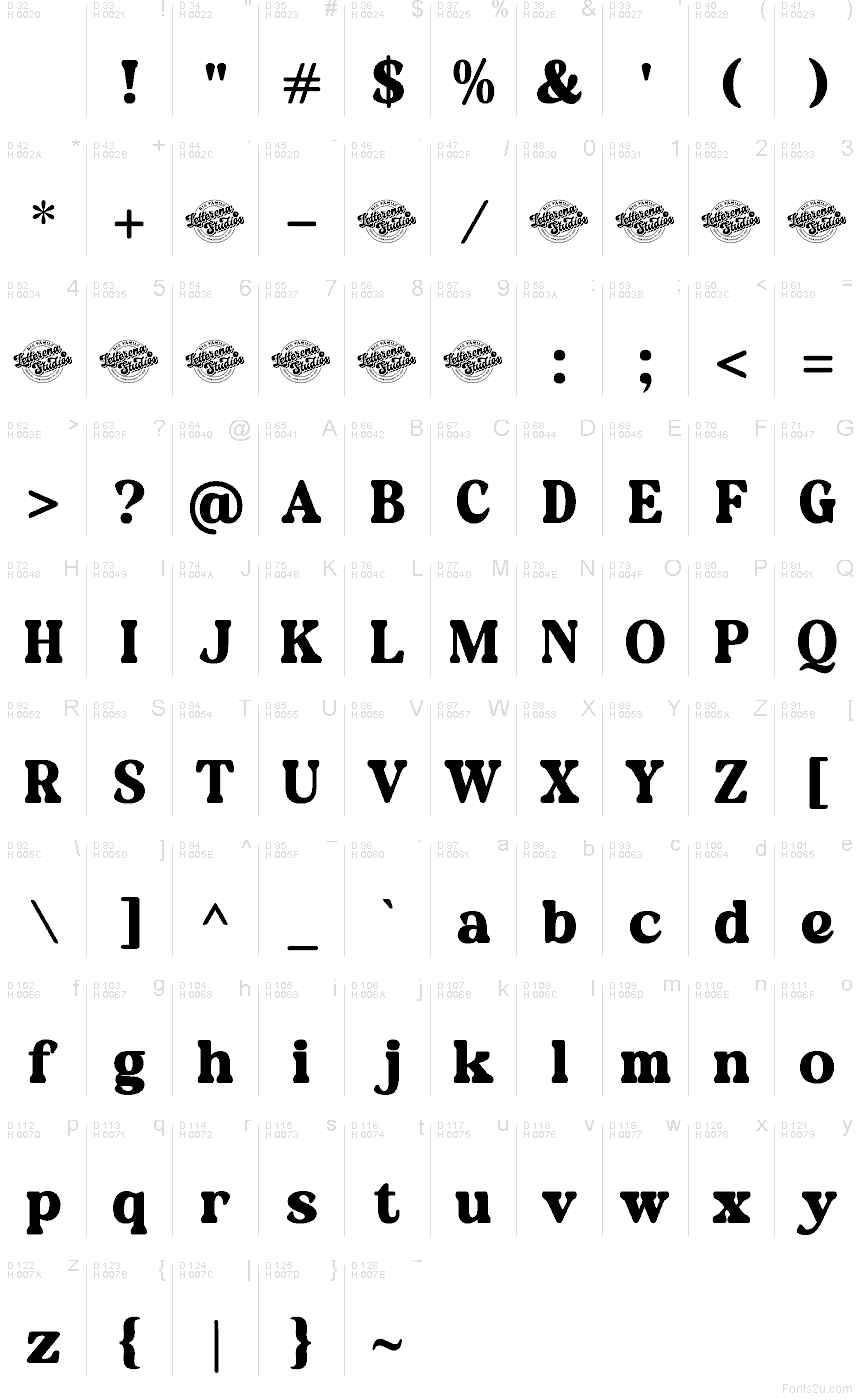
Daylist Beach DEMO VERSION
Daylist Beach font by Letterena Studios is a free serif typeface that feels like warm sand underfoot and a salty breeze on your face. Heavy, inky letterforms with soft, rounded edges give it a playful, sun-drenched character, while the sturdy structure keeps it readable and grounded. It’s the kind of serif that feels hand-painted on a beach shack sign, bold enough to catch the eye yet friendly rather than shouty.
Using Daylist Beach, you can bring an easygoing coastal vibe to coffee packaging, boutique branding, summer event posters, travel blogs, merch, and social media graphics. The generous curves and compact spacing make headlines feel full and lush without needing much extra decoration. This free font pairs nicely with a clean, light sans-serif for body text—let Daylist Beach handle the big, bold words while the sans keeps everything else clear and simple.